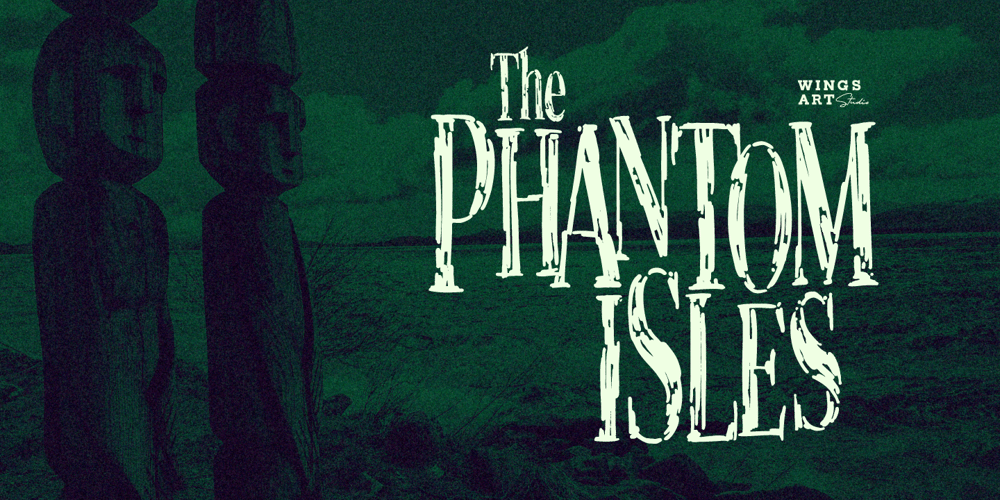
Phantom Isles Font Family was designed by Christopher King and published by Wing’s Art Studio. Phantom Isles contains 2 styles and family package options. The Phantom Isles: Retro Tiki FontA Textured Retro Font Inspired by Tropical Tiki Style and South Sea Adventures!The Phantom Isles is a hand-drawn font inspired by 1950s Tiki culture, tales of exotic locations and south sea adventures. It features the textured look of weathered wood and is the perfect choice for book covers, movie titles, theme parks or vintage themed events.The font includes a complete set of uppercase and lowercase characters, along with numbers, punctuation, symbols and language support. You’ll also find a set of specially illustrated underlines, shapes and icons including flora and fauna, old rope, skulls and more.A Brief History of Tiki CultureOriginating from Māori mythology, a tiki is a wooden or stone carving that represents deified ancestors found in most Polynesian cultures. The mainstream and commercialised Tiki Culture that became popular across America from the 1930s to 50s was inspired by the sentimental appeal of an idealised South Pacific, particularly Hawaii, as viewed through the experiences of those who had visited such areas during World War II and cinematic depictions of beautiful scenery, forbidden love and the potential for danger. Over time it selectively incorporated more cultural elements of other regions that affected Polynesia, such as Southeast Asia.The Americanised form of Tiki Culture maintains a dedicated following today, particularly among those interested in 1950s graphic and interior design, history and the escapist lounge aesthetic it inspires.Learn more about the history of Tiki and Polynesian culture.